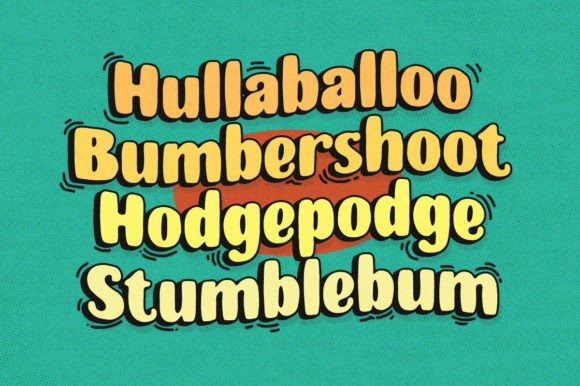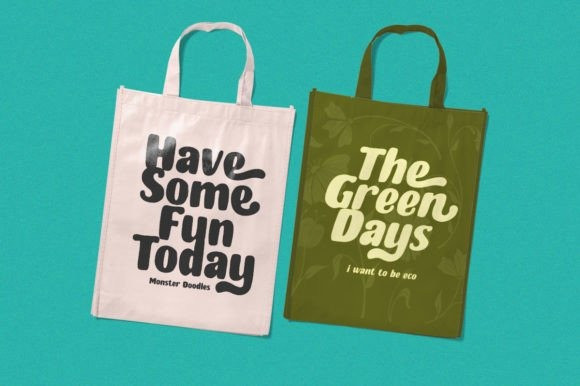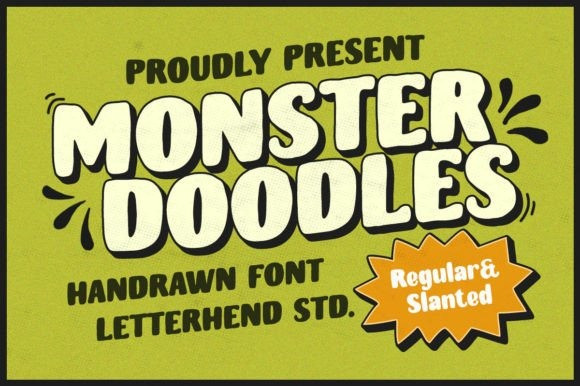
Monster Doodles Font
Monster Doodles Display Font is a hand-drawn font with bold letterforms. Whether you use it for cartoon-related designs, children’s games, or just any creation that requires a vintage and childish touch, this font will be an amazing choice. Monster Doodles is PUA encoded which means you can access all of the glyphs and swashes with ease!